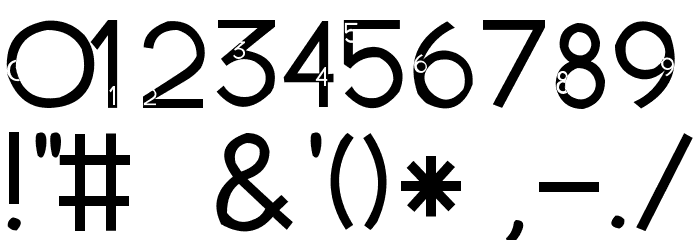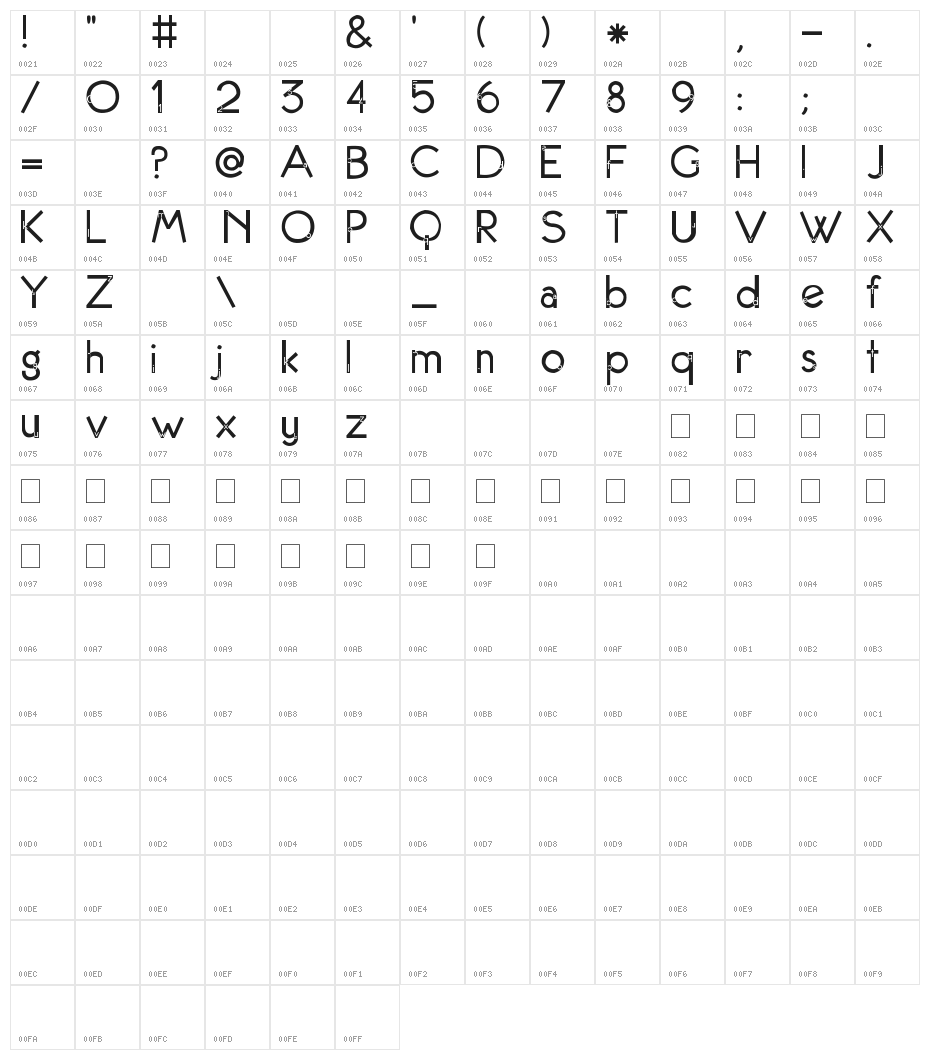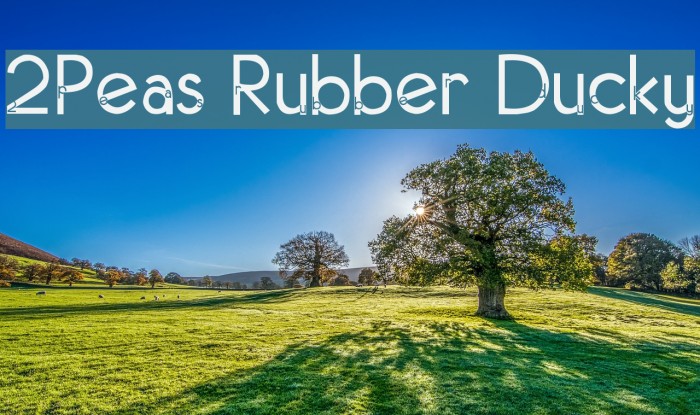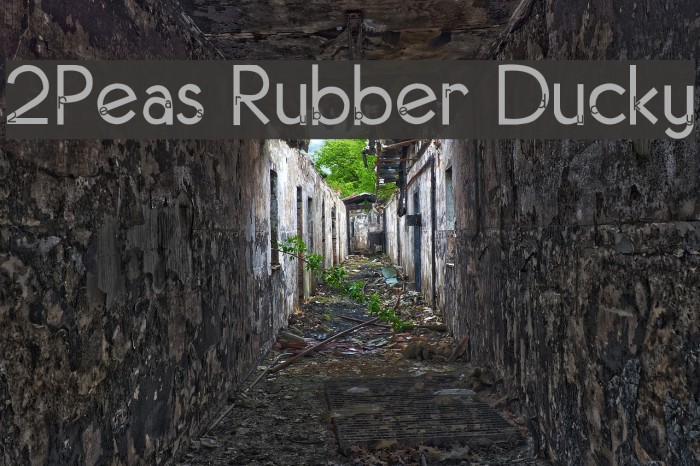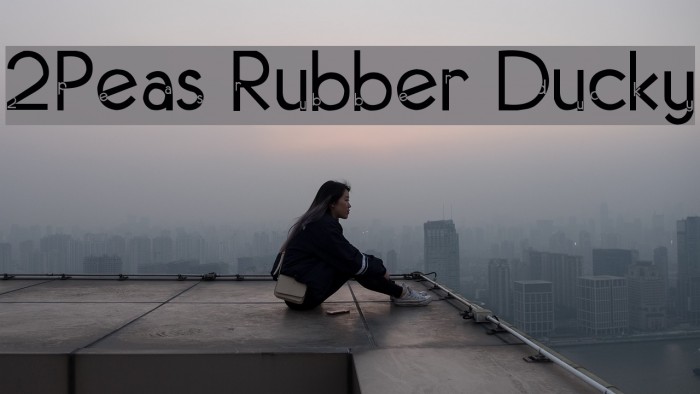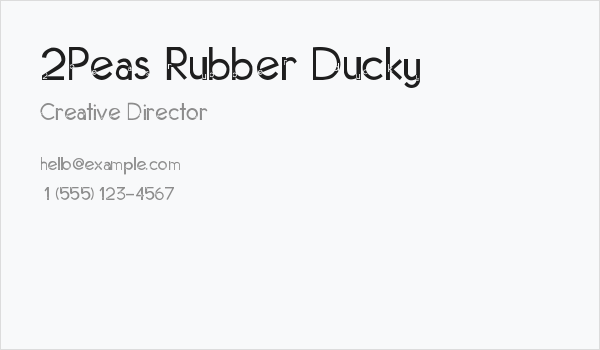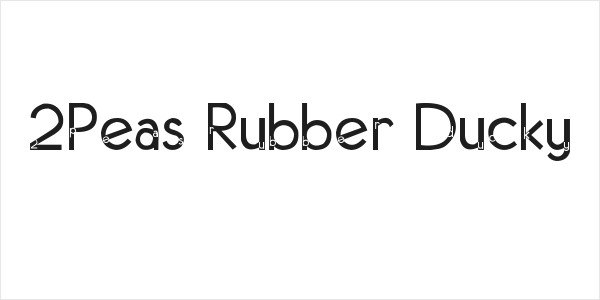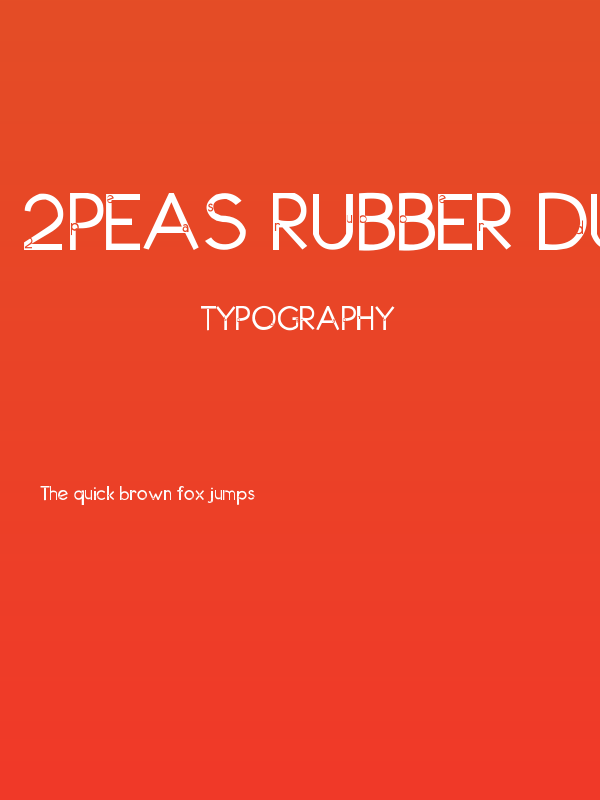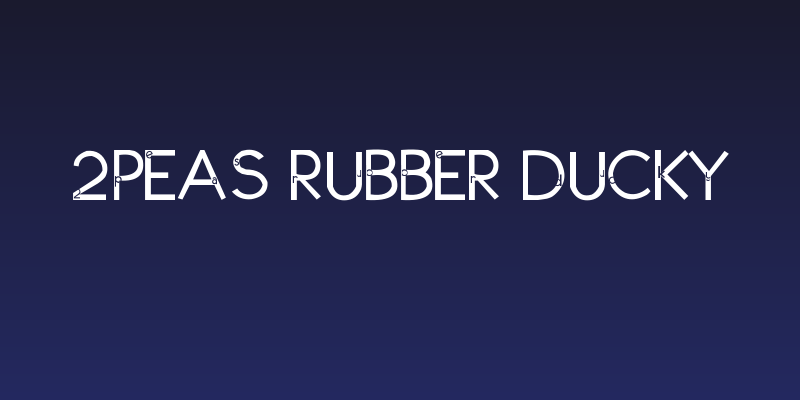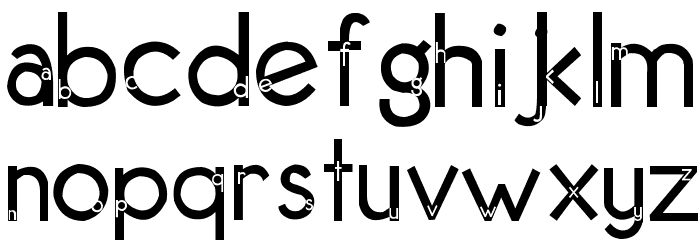
2Peas Rubber Ducky Font
2Peas Rubber Ducky Description
This font features a playful and modern design with a clean and geometric structure. The characters are bold and rounded, giving them a friendly and approachable appearance. The uppercase letters are uniform in height, while the lowercase letters maintain a consistent baseline with slight variations in height for added character. The numerals are clear and easy to read, matching the overall style of the alphabet. Special characters are included, maintaining the same playful aesthetic. The font's simplicity and boldness make it suitable for a variety of design projects.
| Proposed Projects | Ideal for children's books, playful branding, posters, and digital media. |